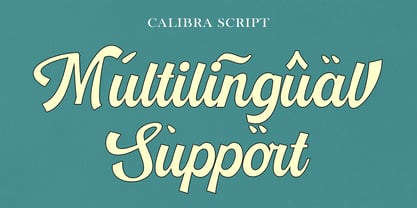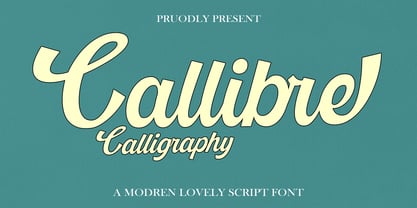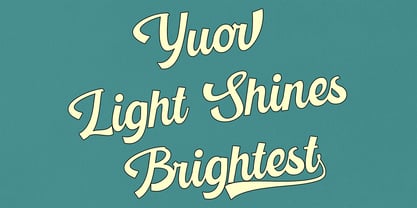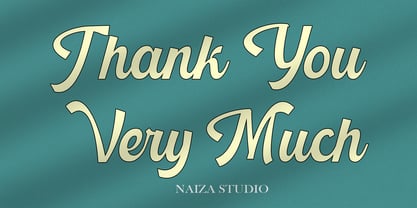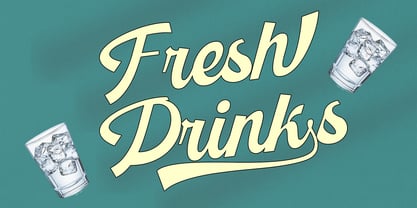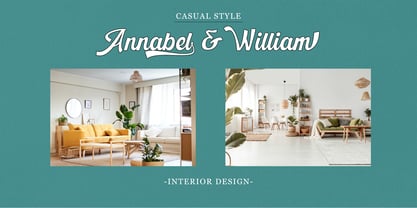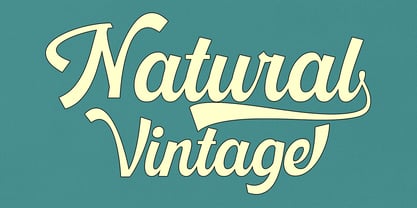
Callibre Calligraphy
by Naiza Studio
The Callibre Calligraphy Font Family was designed by Ata Illah and published by Naiza Studio. Callibre Calligraphy contains 1 styles. More about this family
Introducing “Callibre Calligraphy,” an enchanting cursive font with a handwritten flourish. Featuring a tender and fluid design, it lends a beautiful balance to a myriad of creative outputs. Infuse your projects with a playful yet romantic ambiance that makes any design stand out. Ideal for distinctive branding and exquisite logos, this font can add an elegant touch to wedding essentials and heartfelt greeting cards. Callibre Calligraphy splendidly complements fashion lookbooks and marketing promotions by conveying luxury, elegance, and a dash of relaxed sophistication. Take your design aesthetics from ordinary to extraordinary with the charming subtlety of Callibre Calligraphy.
Designers: Ata Illah
Foundry: Naiza Studio
Callibre Calligraphy